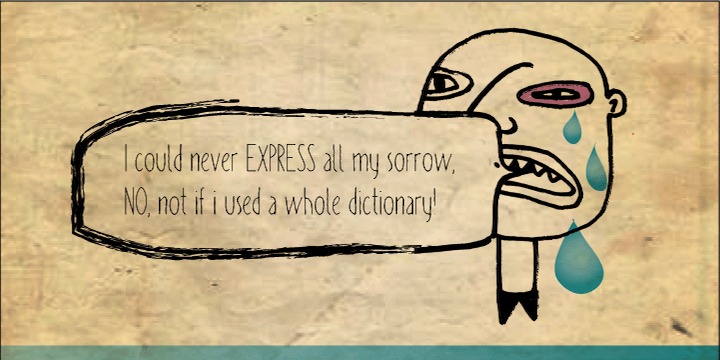
How many times have you been looking for a handwritten yet not childish font without result? We have a nice solution for you-our brand new PISAK! :)
Thanks to extra thin condensed letters PISAK is easy readable and ideal for text writing. Its subtle irregularity makes it warm and friendly good for unoficial designs.